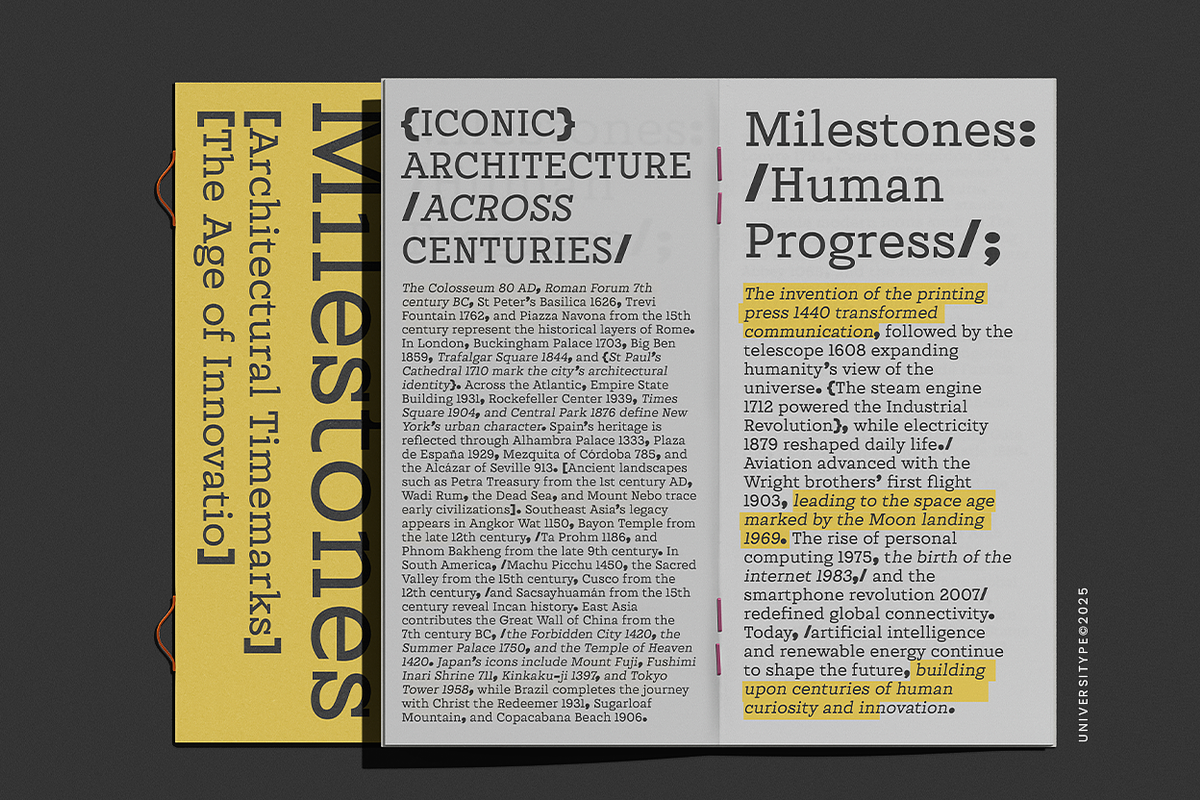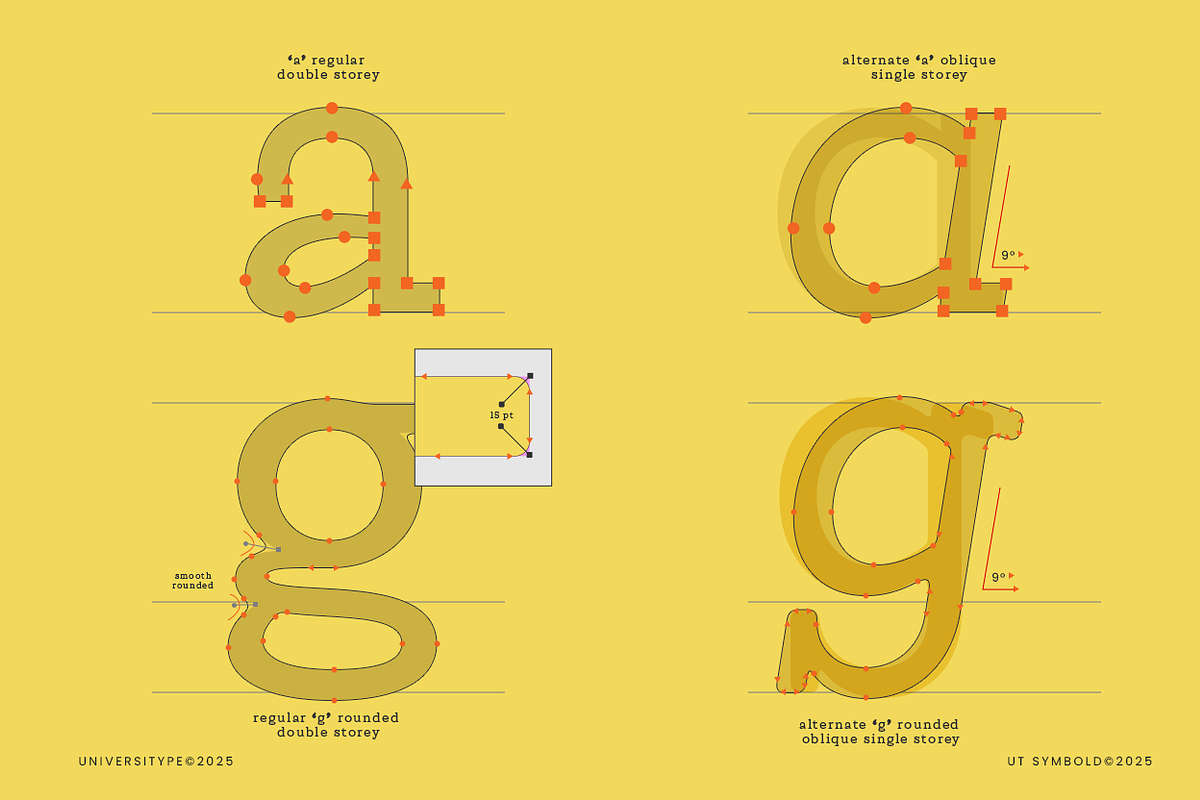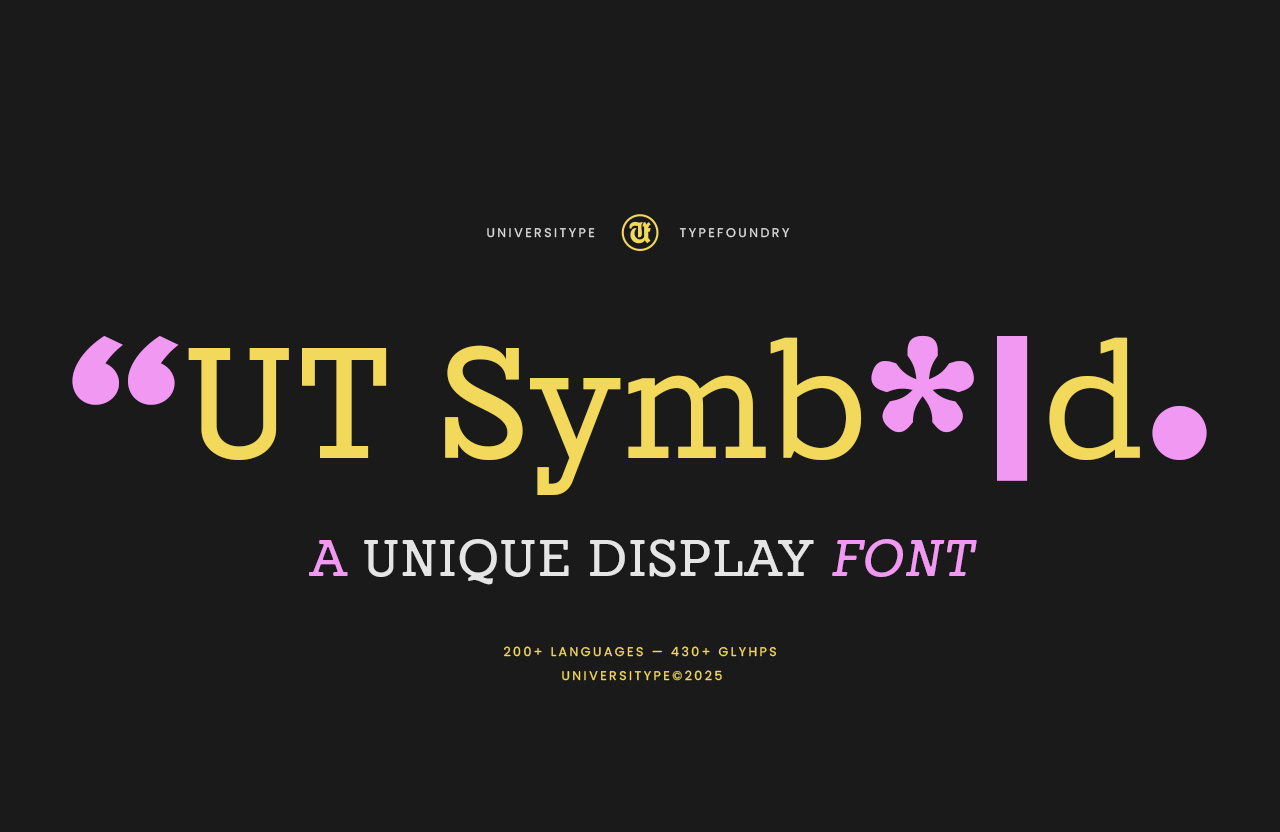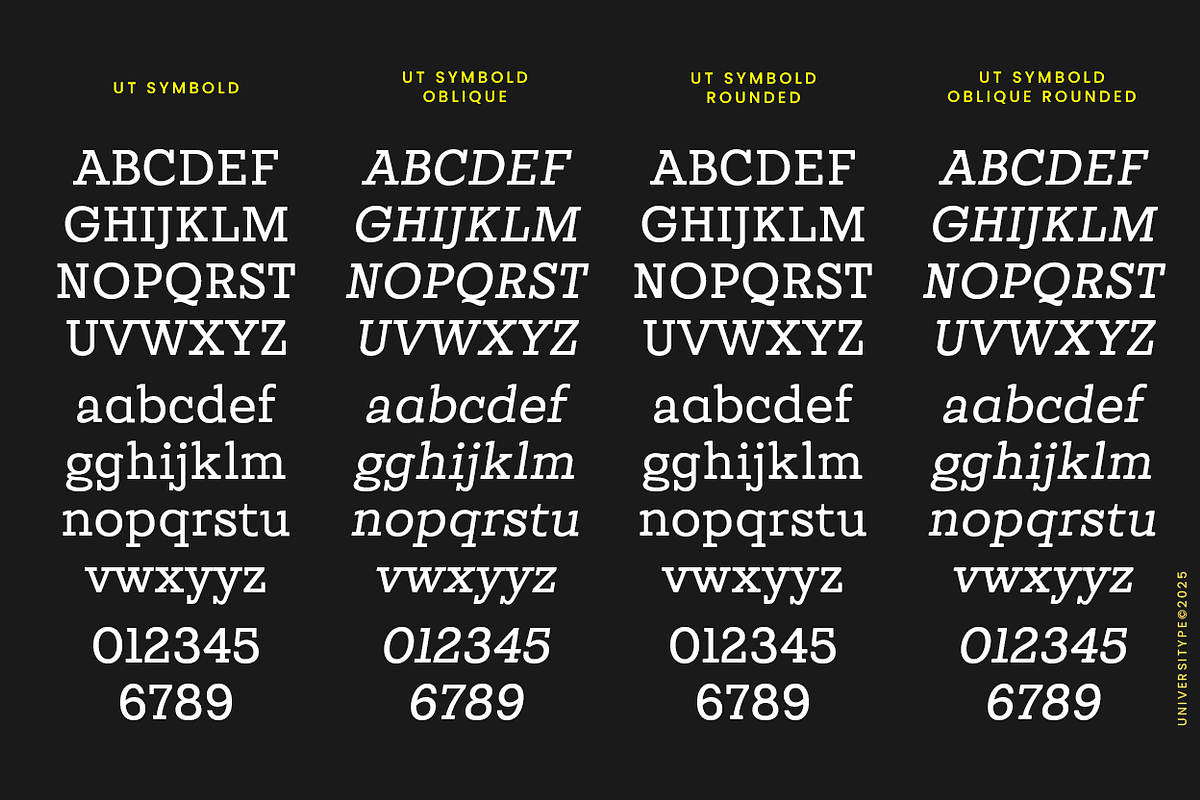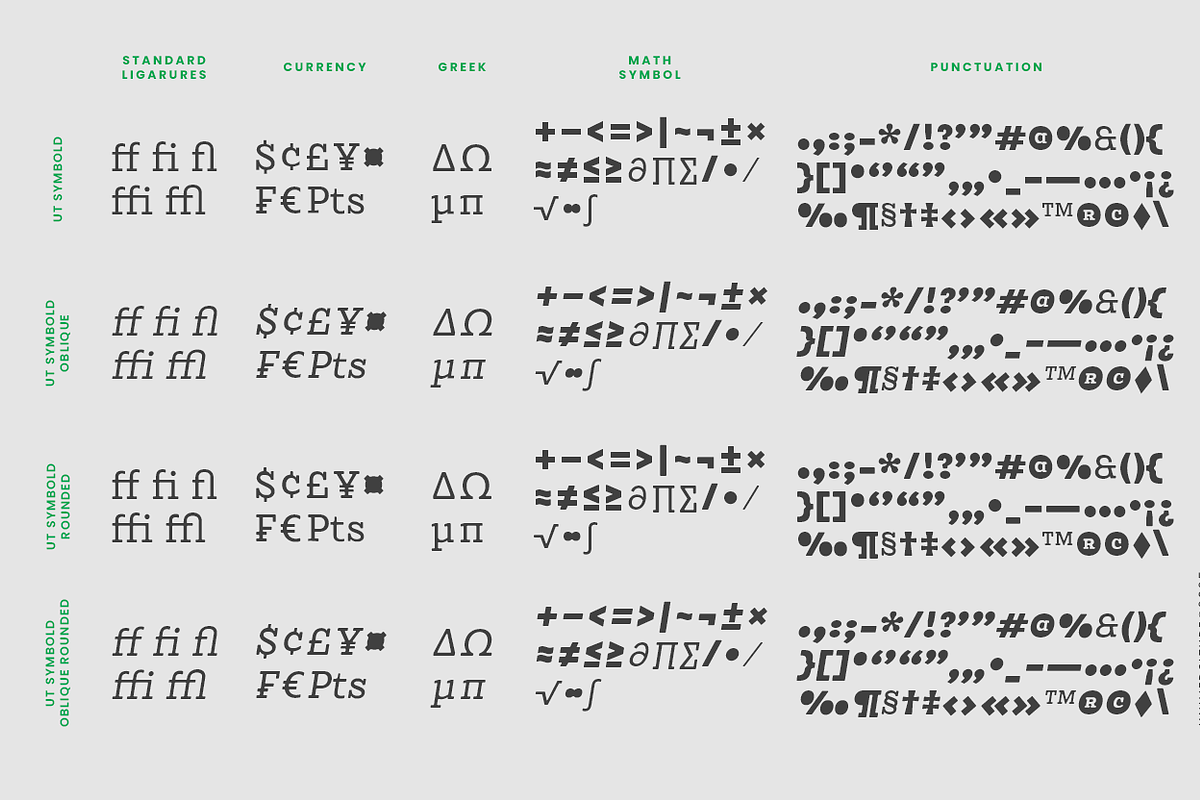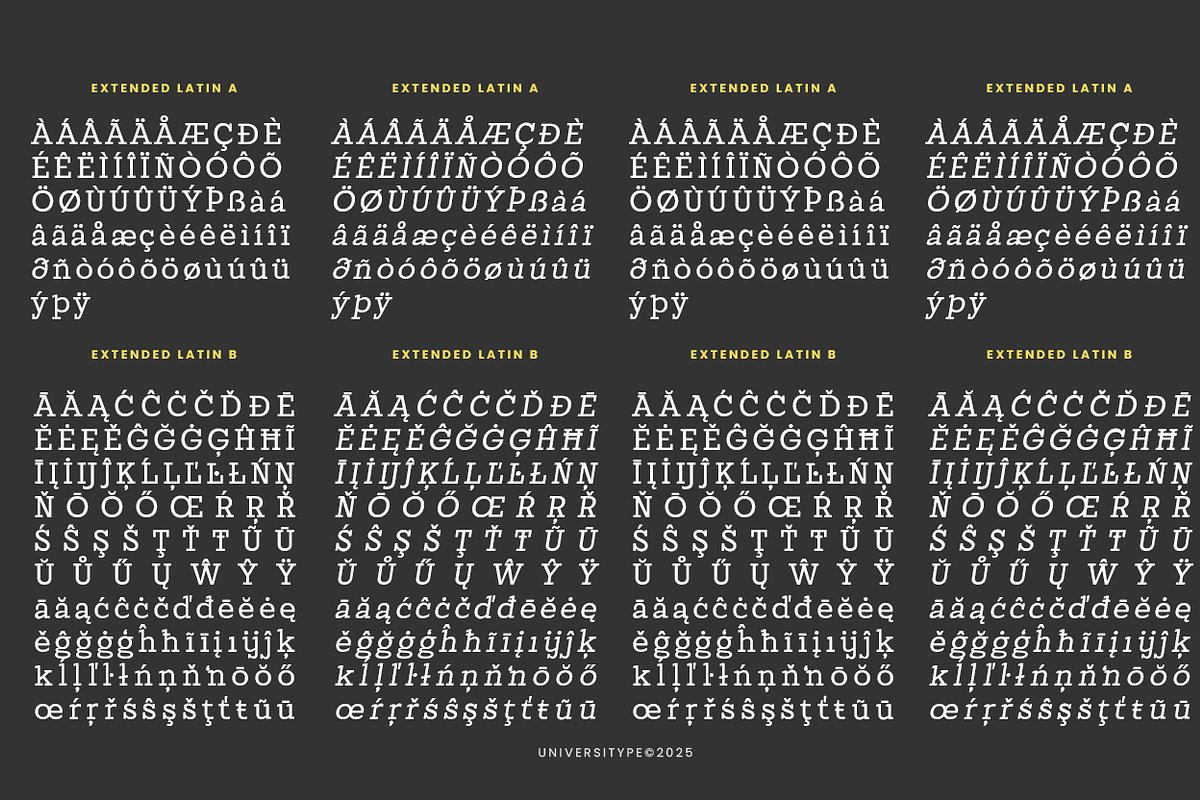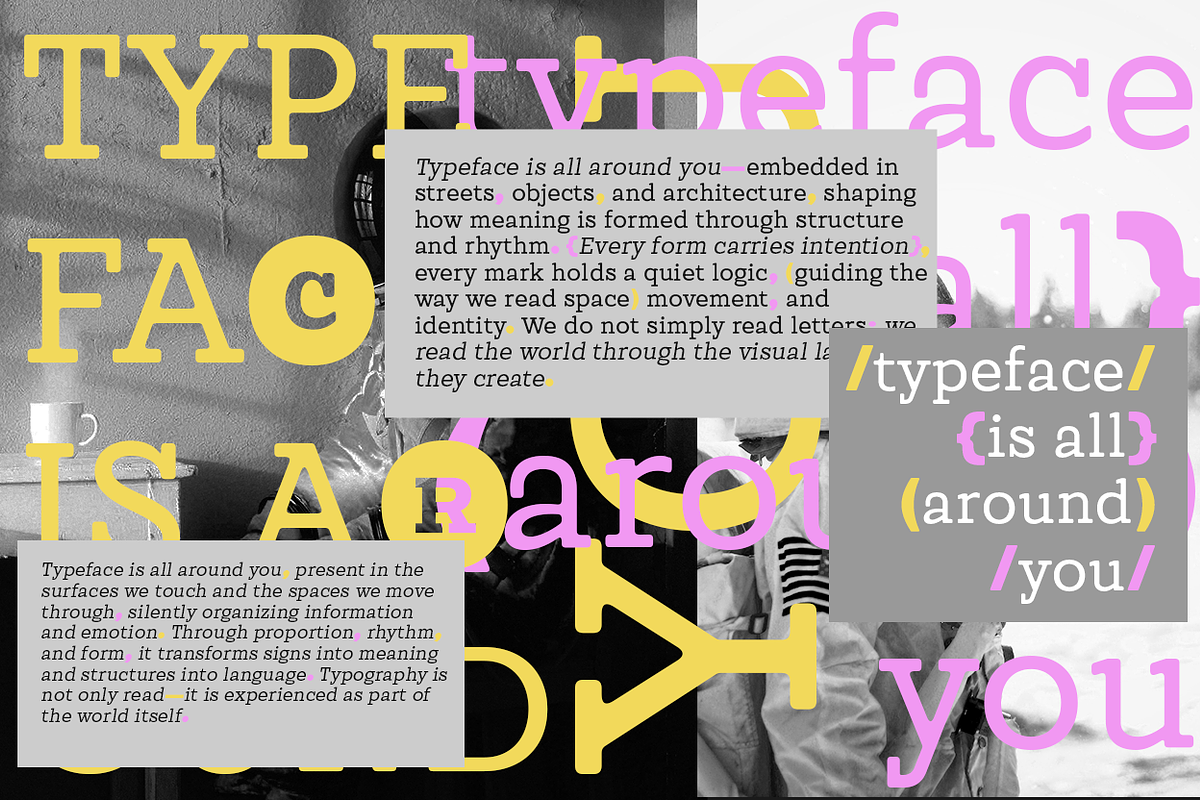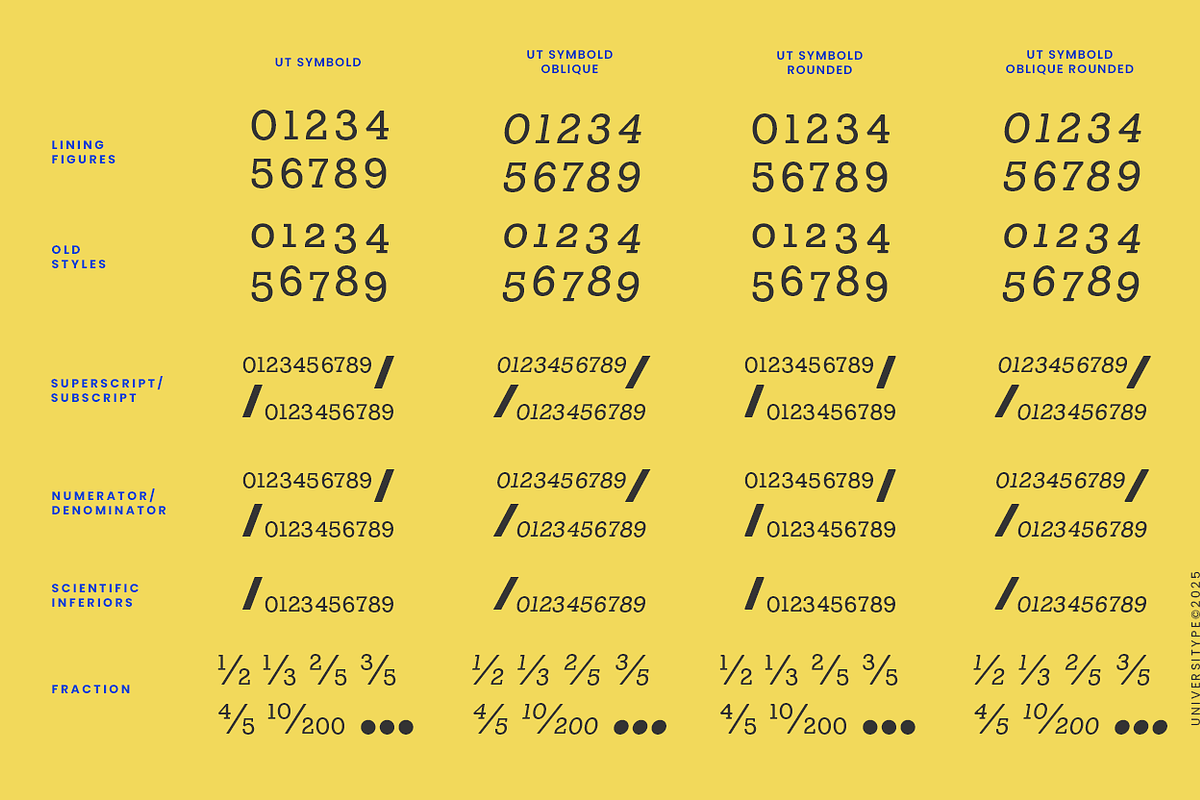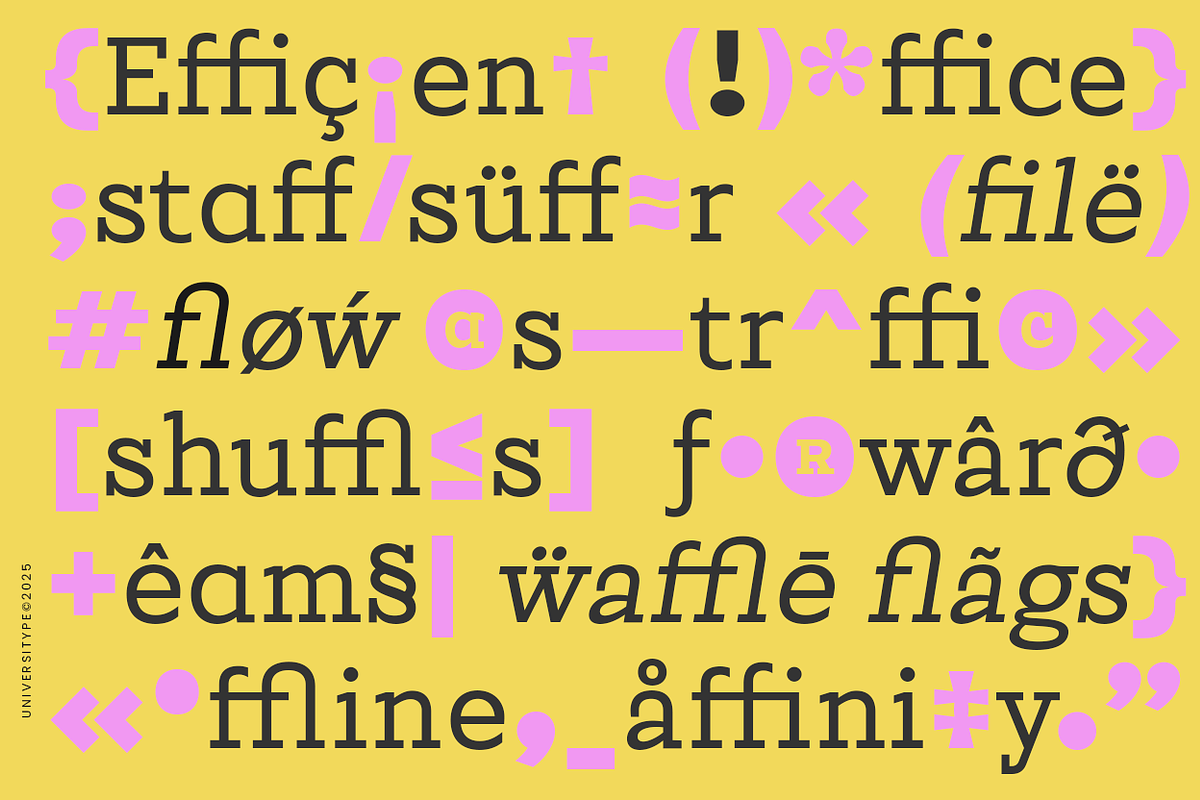
UT Symbold - A Unique Display Font
UT Symbold is a striking, experimental display typeface that challenges the traditional hierarchy of written language. This font treats punctuation, mathematical symbols, and glyphs with the same weight and personality as its alphanumeric characters. It is a high-contrast, slab-influenced face that commands attention, making it perfect for designers who want their text to do more than just “read”—it needs to communicate through a visual system of signs.
- Four Distinct Styles: Includes Regular, Oblique, Rounded, and Oblique Rounded, allowing for a range of tones from sharp and academic to soft and contemporary.
- Symbol-Centric Design: Over 430+ glyphs where symbols are integrated seamlessly into the letterforms, encouraging a “semiotic” approach to typography.
- Robust Numeral System: Features lining, old-style, proportional, and tabular figures, alongside comprehensive fraction and scientific inferior support.
- Global Reach: Supports over 200+ languages with an extensive Extended Latin (A & B) character set.
Inspiration Behind the Design The core philosophy of UT Symbold is rooted in the Peircean Era of Semiotics. Inspired by the work of Charles Sanders Peirce (1867–1914), the font explores the “Theory of Signs.” It treats every character—whether it’s a letter ‘a’ or a mathematical ‘$\approx$‘—as a representamen within a triadic model. The design bridges the gap between resemblance and convention, making the typeface a literal “kit of parts” for visual communication.
Usage Suggestions
- Editorial Masterheads: Use the “Regular” or “Oblique” for high-impact titles in architecture or philosophy journals.
- Experimental Posters: Mix the “Rounded” and “Regular” weights to create a layered, textured look as seen in the billboard mockups.
- Technical Branding: Utilize the extensive math and currency symbols for fintech or data-driven brand identities.
- Packaging: Its heavy presence makes it ideal for modern, minimalist product labels that rely on typographic texture.
- Total Glyphs: 430+
- Language Support: 200+ (Extended Latin A & B)
- Styles: 4 (Regular, Oblique, Rounded, Oblique Rounded)